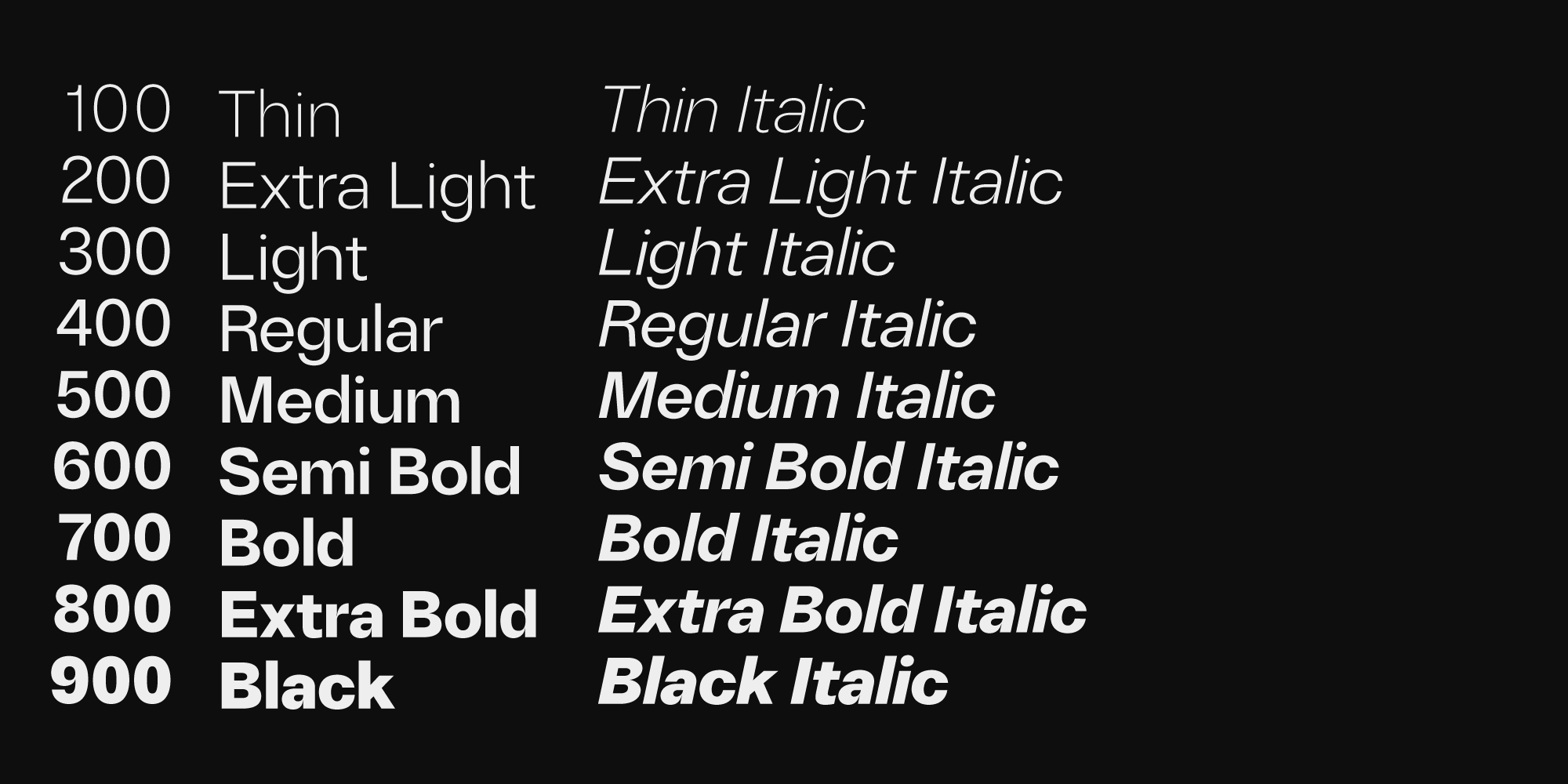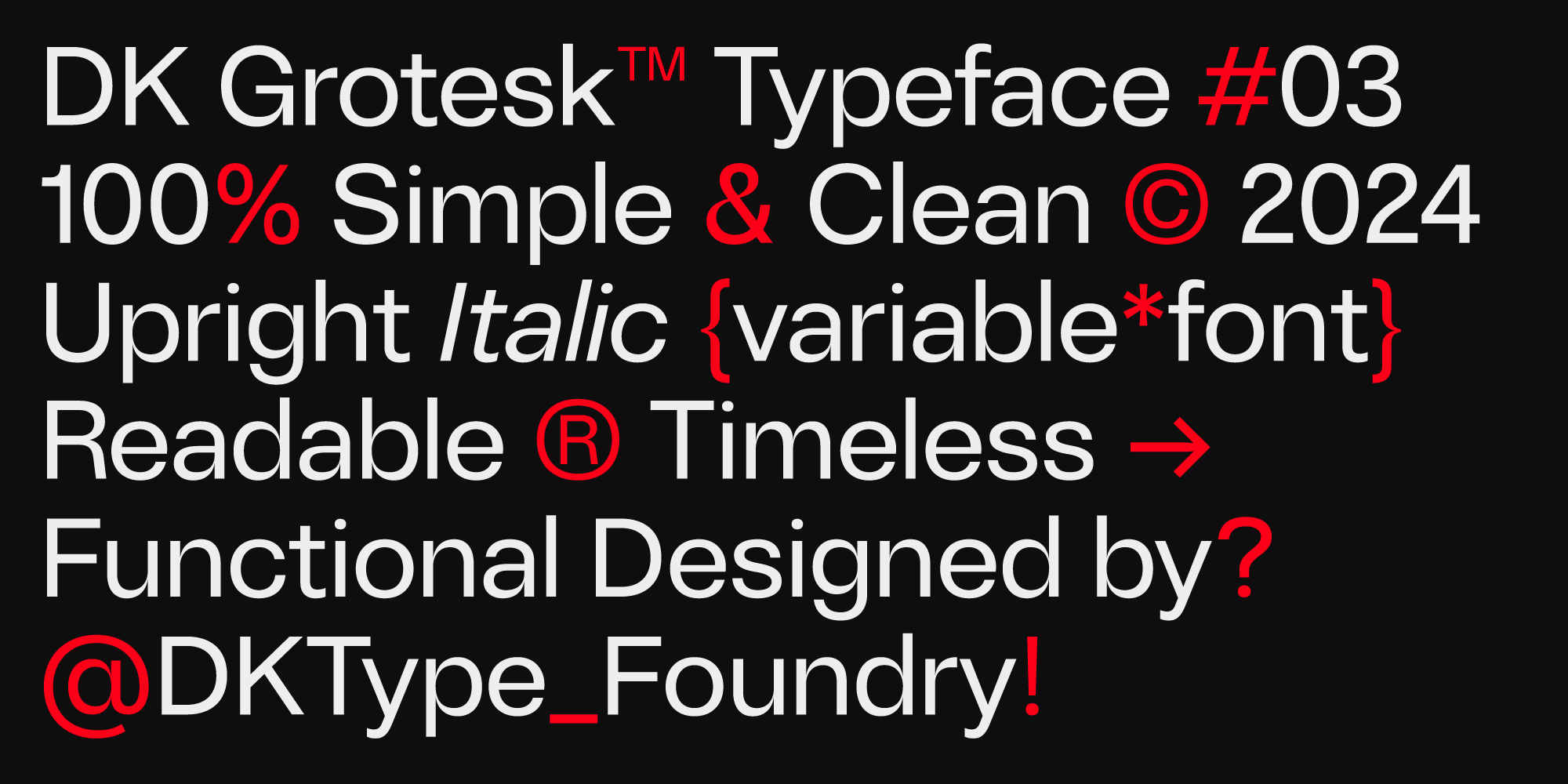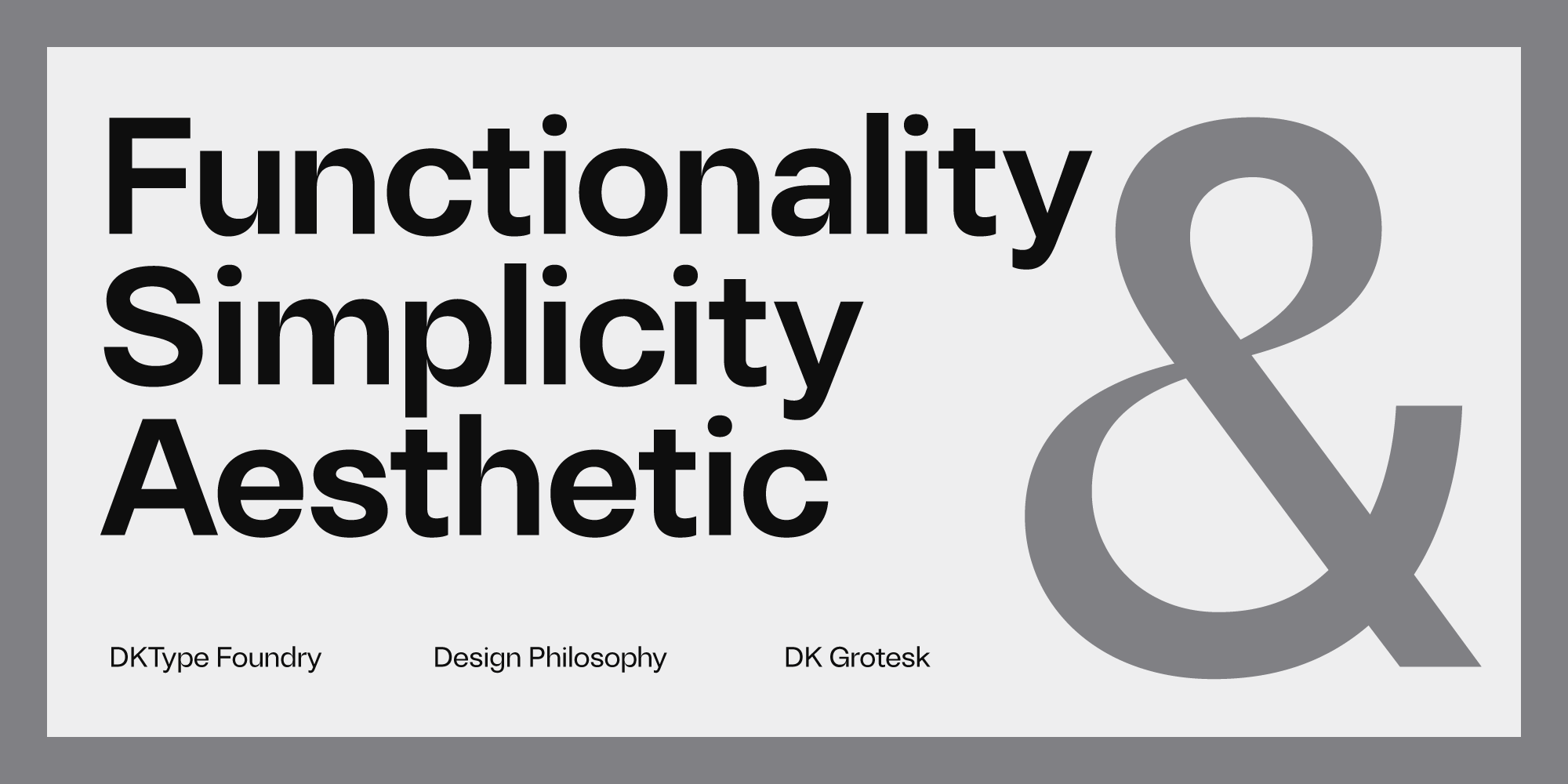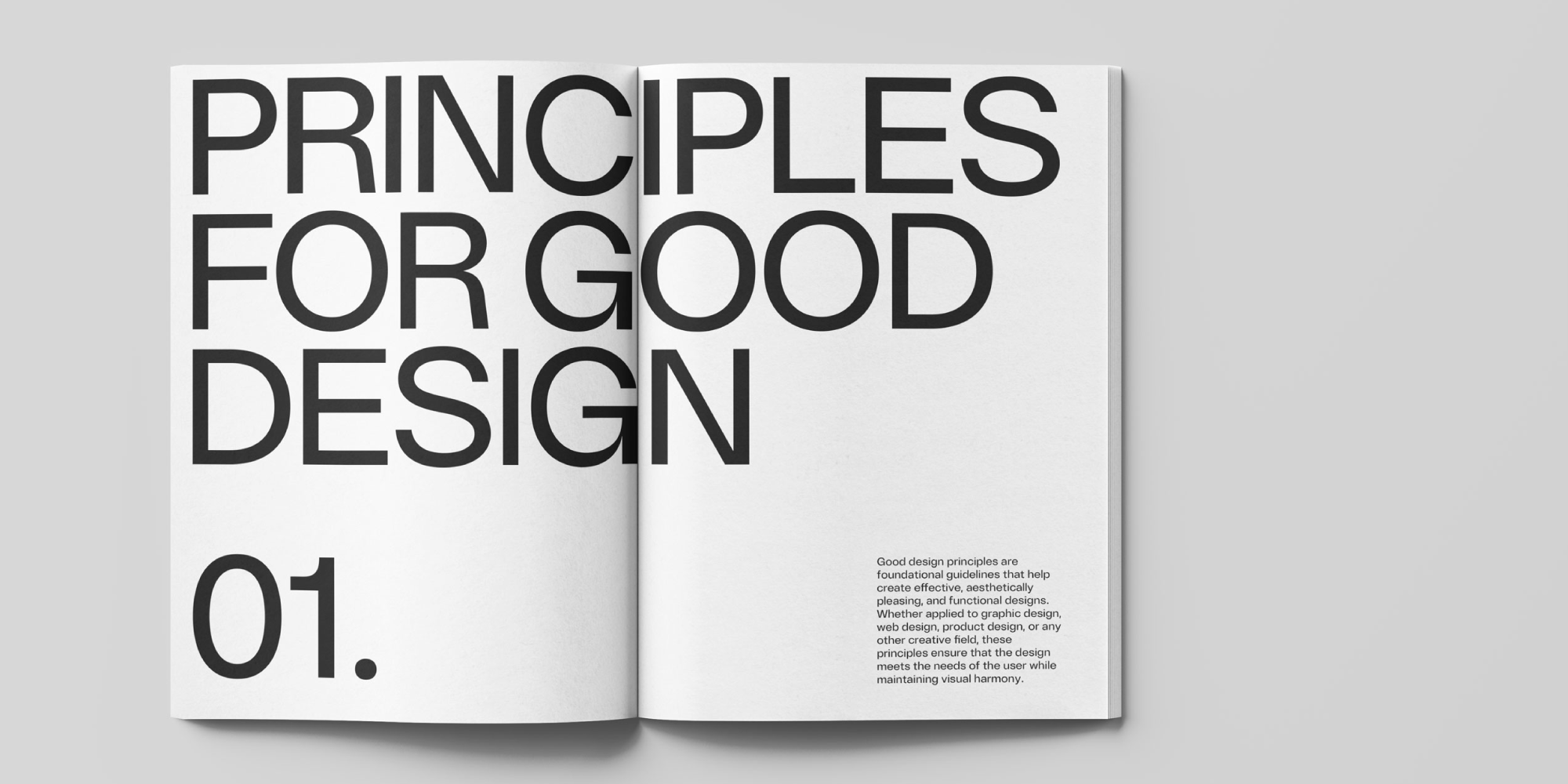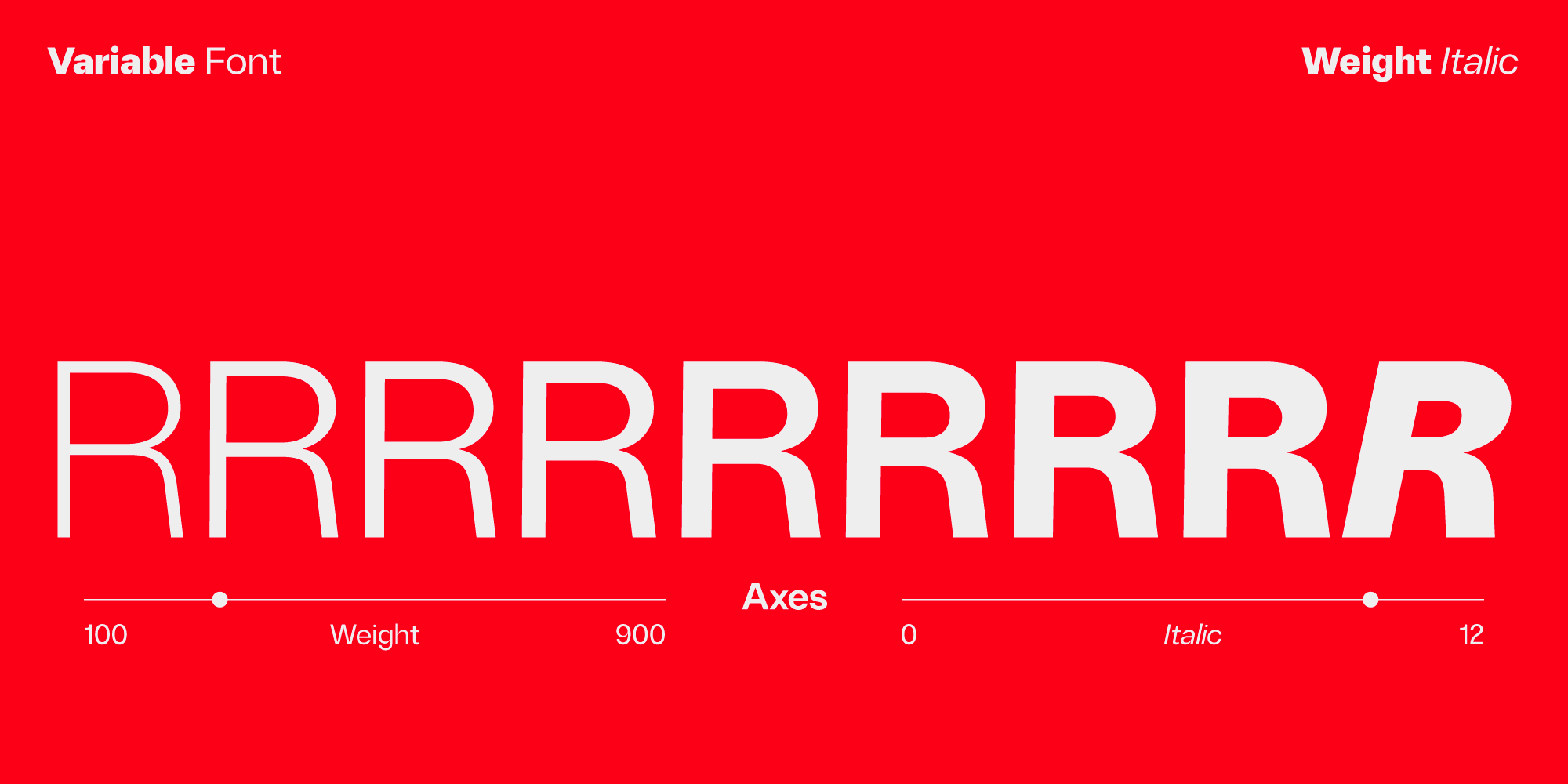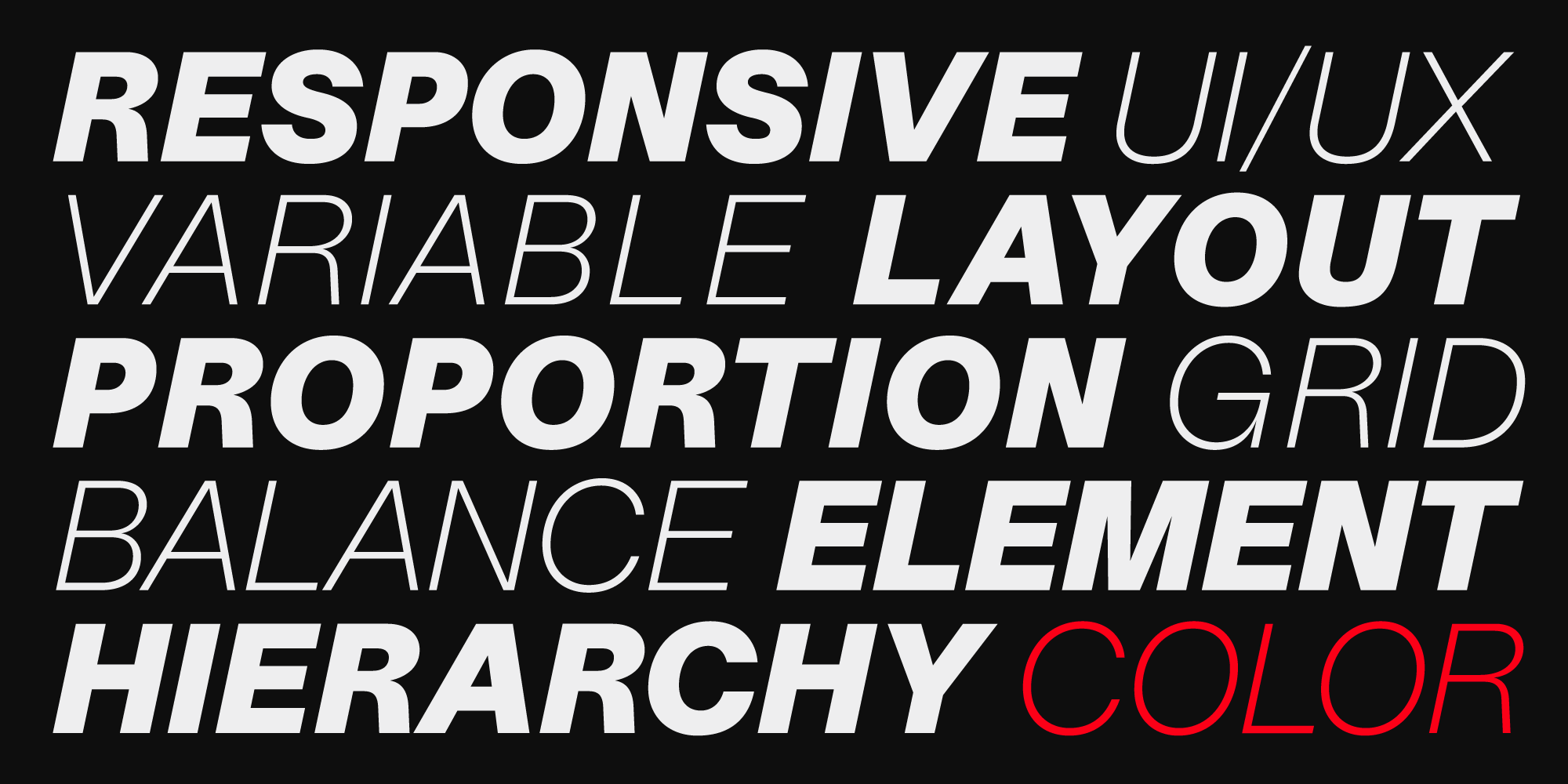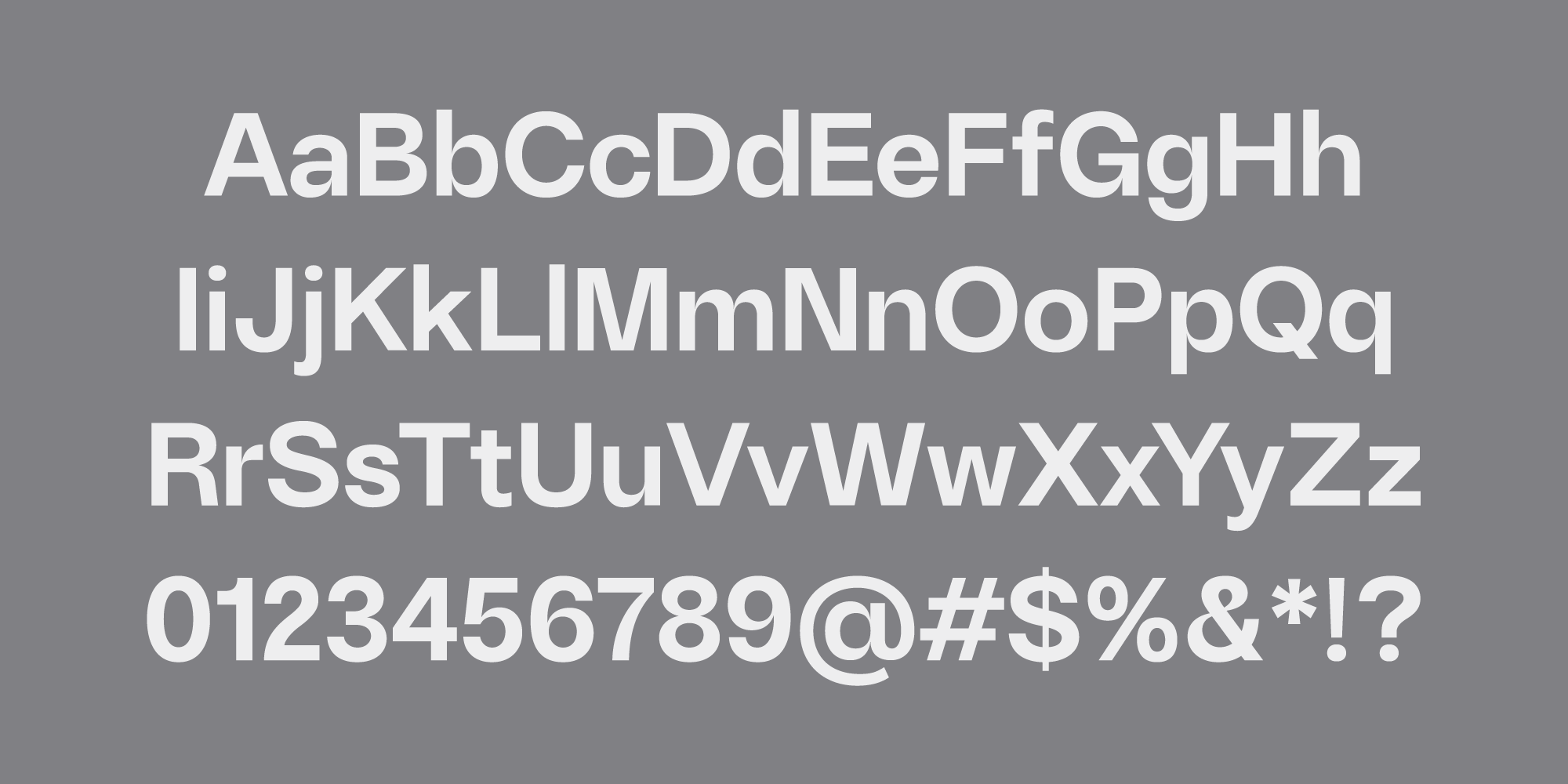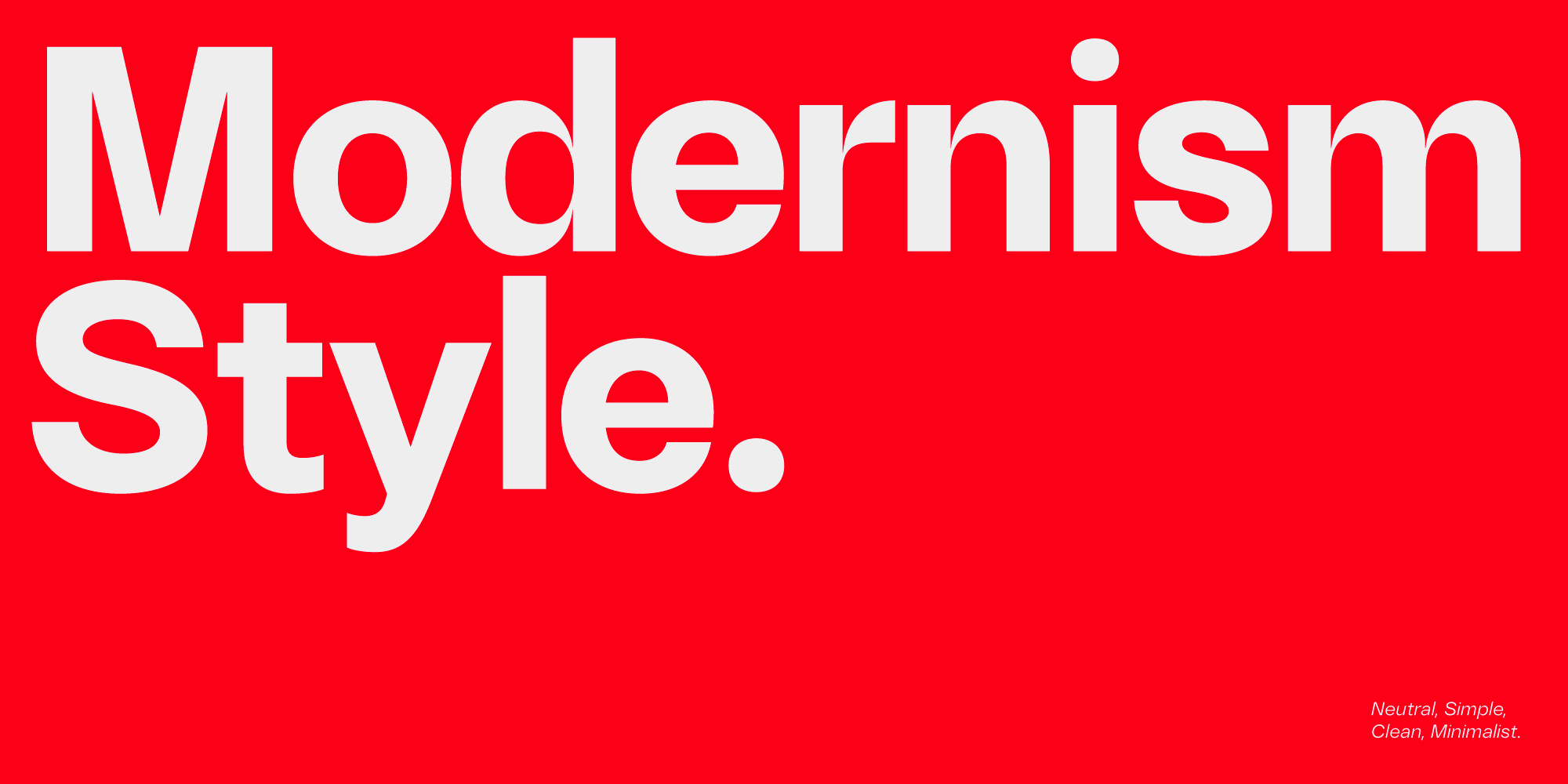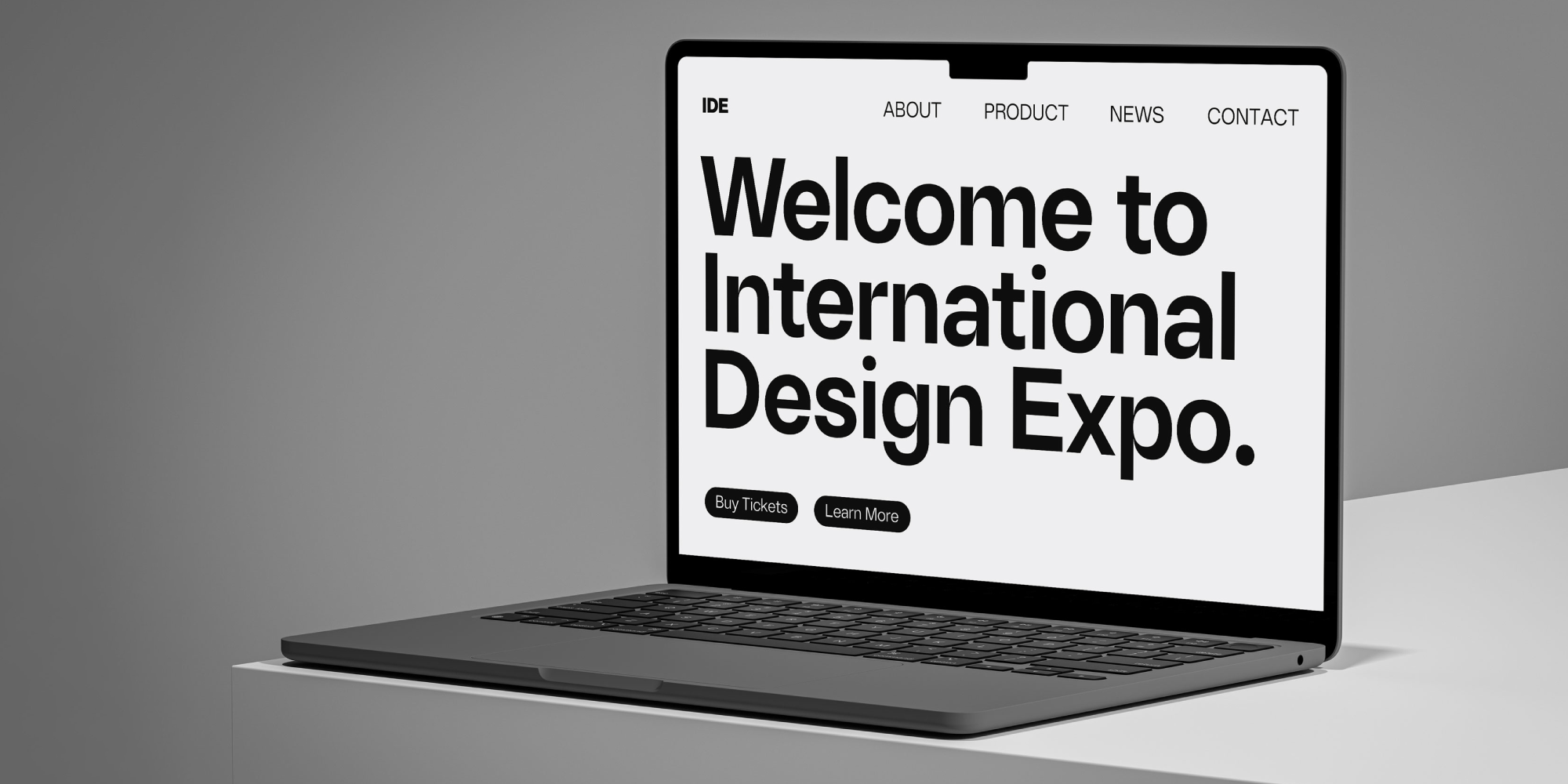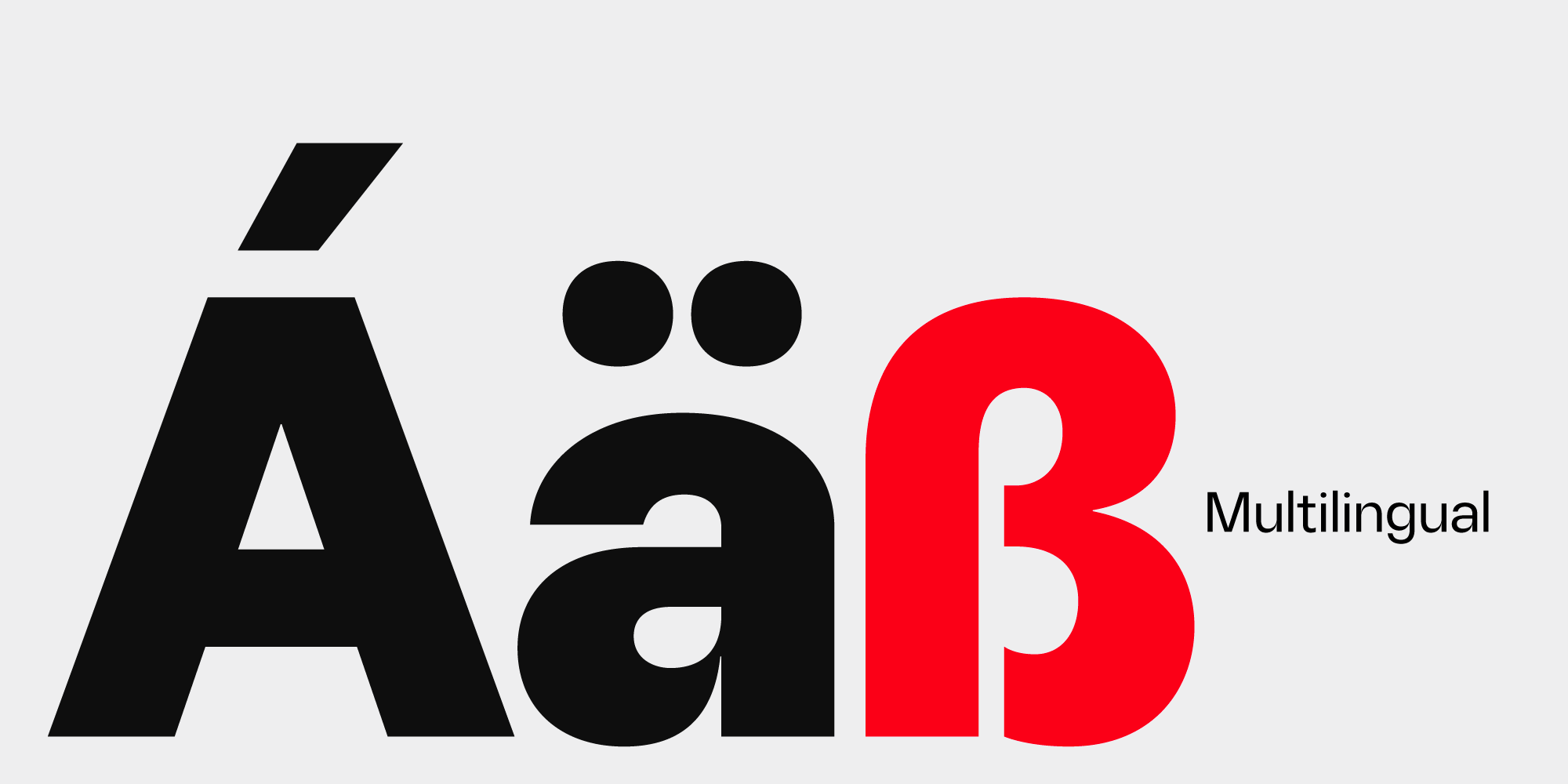
DK Grotesk
DK Grotesk is a modern sans serif typeface inspired by the timeless qualities of classic Grotesk designs. It embodies a clean and simple aesthetic, with a focus on exceptional readability and versatile functionality. Each character in DK Grotesk is meticulously crafted to achieve a harmonious balance between form and function, making it an ideal choice for a wide range of applications.
Whether used in digital interfaces, editorial design, or branding, DK Grotesk delivers a clear, effective, and aesthetically pleasing typographic experience. Designed with both utility and beauty in mind, DK Grotesk ensures that your content is not only legible but also visually compelling, standing out with its understated elegance and modern appeal.